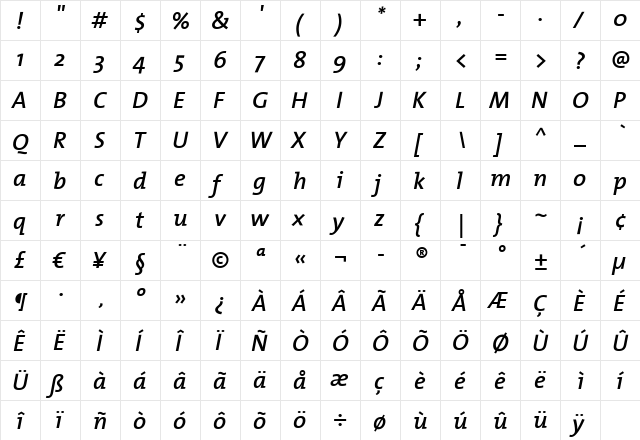
TheMix SemiBold Italic Font Preview
| Style | SemiBold Italic |
| Foundry | Copr. Luc as de Groot |
Design Context for TheMix Typeface
TheMix offers clean, dependable letterforms without strong stylistic allegiance, making it a practical choice for designers who need flexibility. The dynamic lean of this cut emphasises speed and emphasis in any layout. The heavy weight commands attention and anchors typographic hierarchies.
Pro Tip: Try TheMix for annotation and caption copy alongside an upright companion — the contrast in angle creates a dynamic but ordered typographic system.